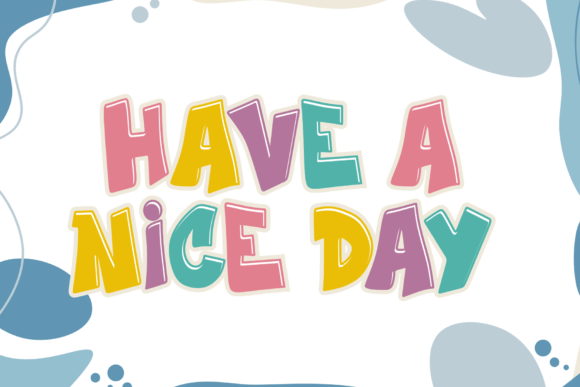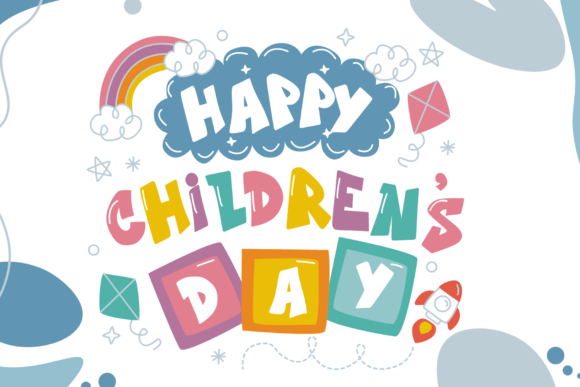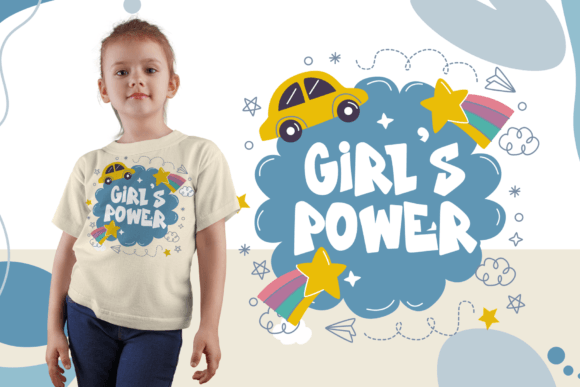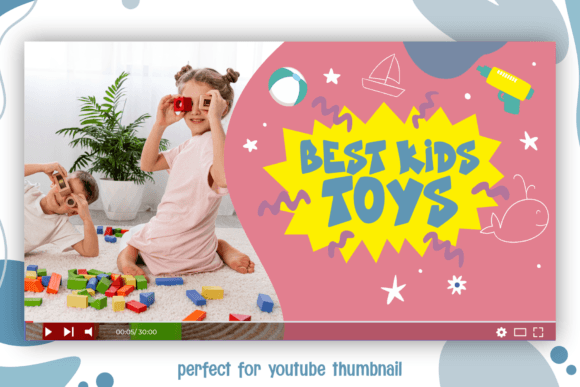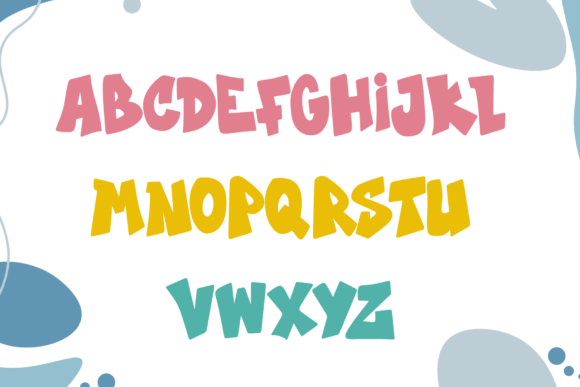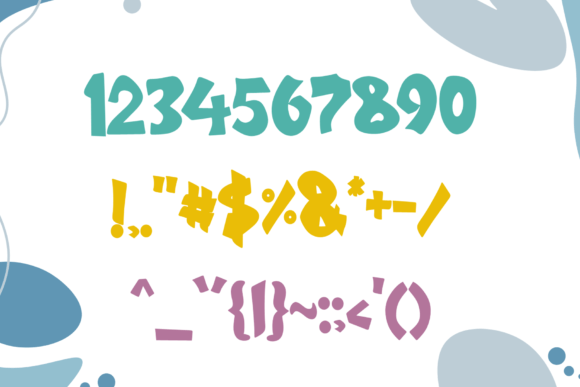
The Power of Playfulness: How Boldface Font Can Elevate Your Designs
I still remember the time I was working on a children’s book project, determined to create a design that would captivate my young audience. As I scrolled through font after font, I just couldn’t seem to find the right fit – until I stumbled upon Boldface. This charming display font instantly brought a smile to my face, and I knew I had found the perfect match. In this article, I’ll share my experience with Boldface, its unique features, and how you can make the most of it in your designs.
What Makes Boldface So Special?
Boldface is a delightful, thick display font designed to add a touch of cuteness and playfulness to any kids or baby project. Its rounded, chunky characters create a friendly and inviting look that’s perfect for a wide range of applications, including children’s books, nursery decor, toy packaging, birthday invitations, and educational materials.
So, what do I love about Boldface? 🤔 Here are a few highlights:
- ✨ Cute and playful: Boldface is the epitome of fun and playfulness, making it perfect for designs that require a touch of whimsy.
- ✅ Highly readable: Despite its chunky design, Boldface remains surprisingly readable, even at smaller sizes.
- 💕 Emotional connection: The font’s friendly and inviting style helps create an emotional connection with young audiences.
While Boldface is an excellent font, it’s not without its quirks. ⚠️ Here are a few limitations to keep in mind:
- ⚠️ Limited versatility: Boldface is designed specifically for kids and baby projects, so it may not be the best fit for more formal or corporate designs.
- 🤔 Overuse: As with any font, using Boldface excessively can lead to visual fatigue.
The Story Behind Boldface
Boldface was designed with one goal in mind: to create a font that captures the playful, innocent essence of childhood. Its creator, a talented type designer, drew inspiration from classic children’s books and nursery rhymes. The result is a font that’s both charming and highly readable.
| Font Name | Boldface Font |
| Author | Cikareotype |
| What is Boldface best used for? | Boldface is perfect for kids and baby projects, including children’s books, nursery decor, toy packaging, birthday invitations, and educational materials. |
| Is Boldface suitable for body text? | While Boldface is highly readable, it’s best used as a display font. For body text, consider using a complementary font that’s easier to read. |
| Does Boldface support OpenType features? | Yes, Boldface supports OpenType features, including glyphs and stylistic alternates. |